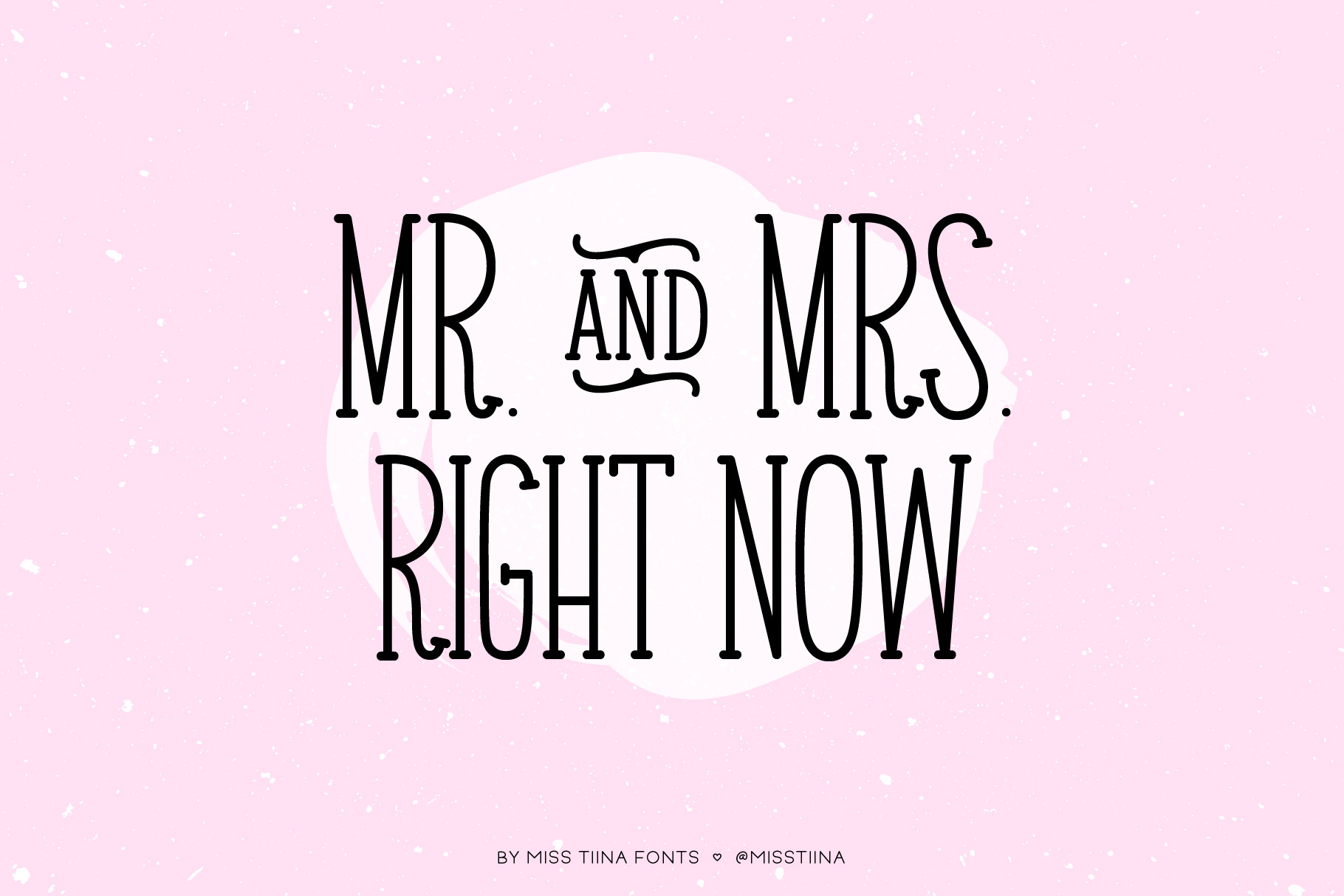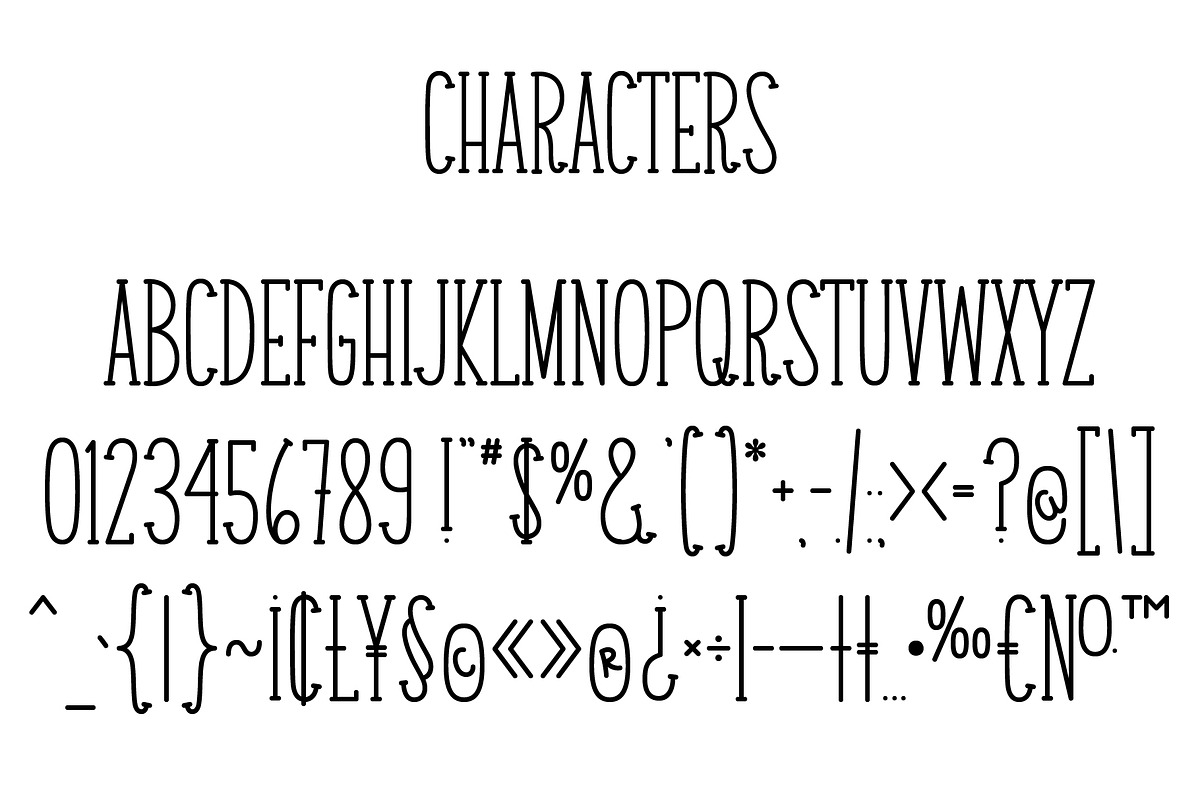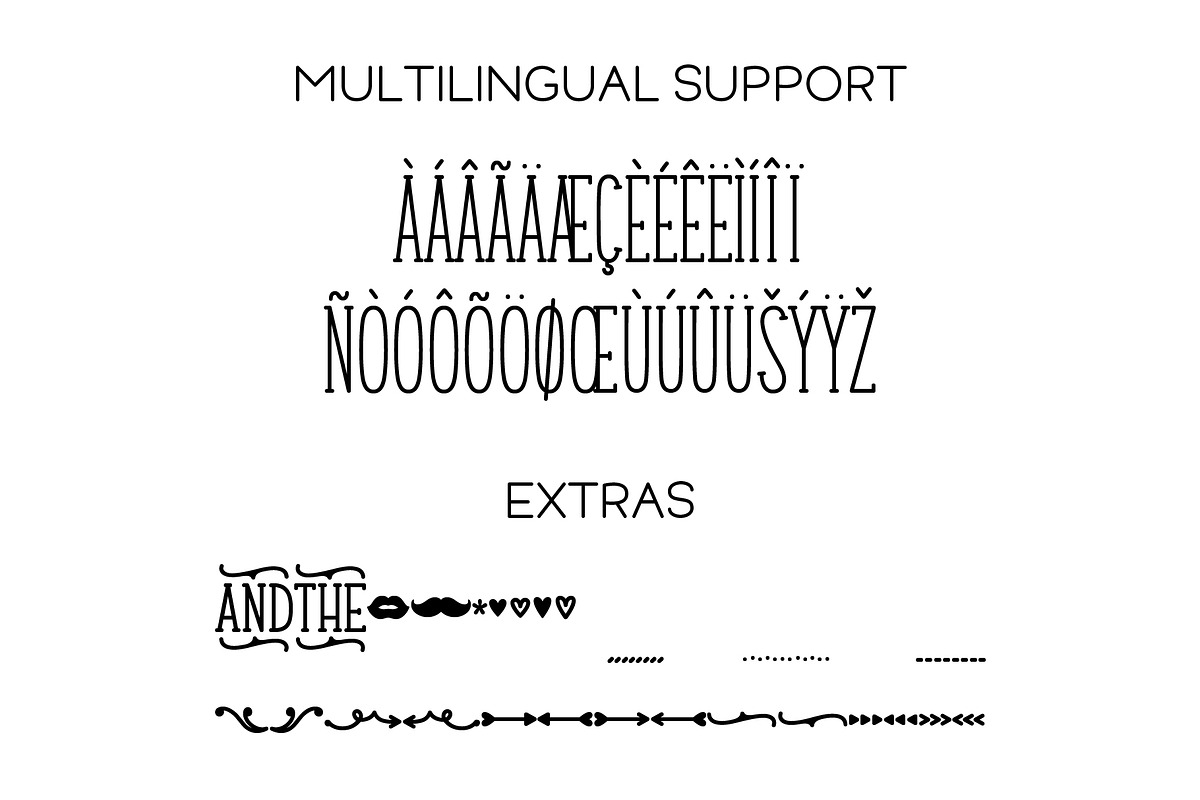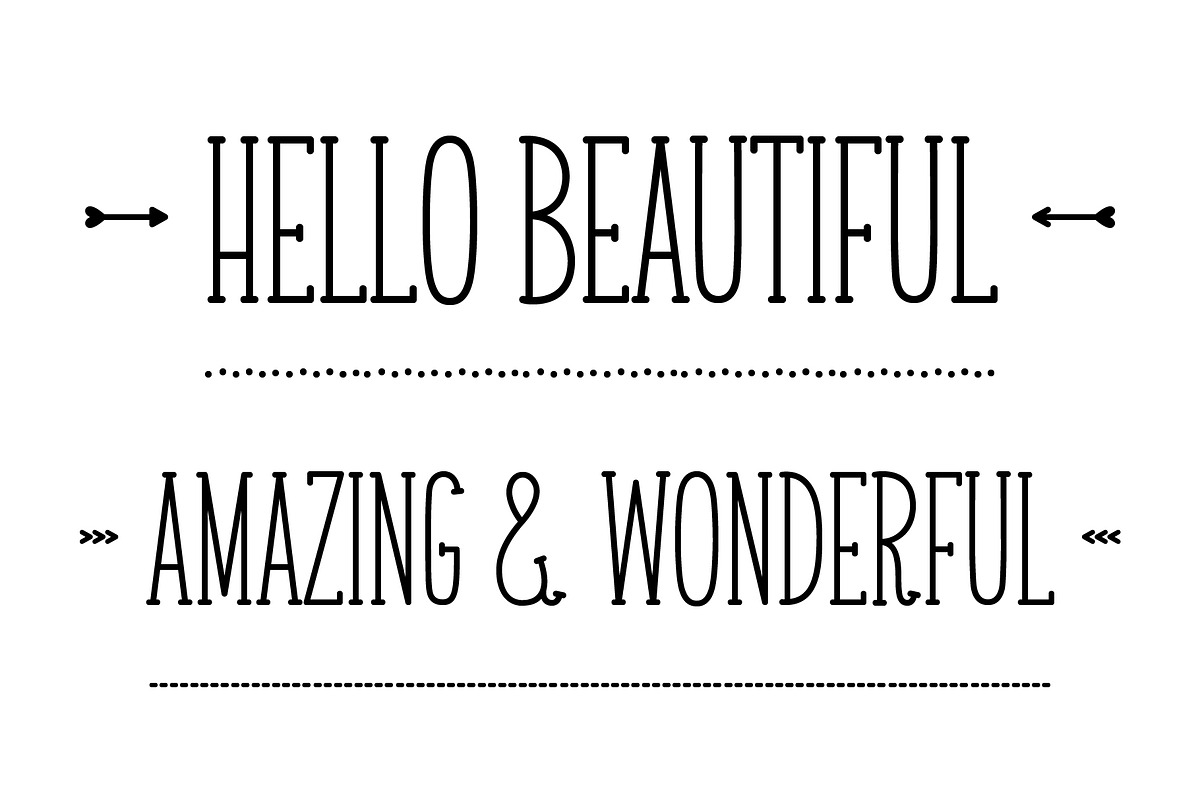
Mr. & Mrs. Right Now Font
Mr. & Mrs. Right Now is a stylish, yet fun handwritten serif font. Its unique charm and unusual coziness make it the right (!) choice for any design project you are working on. Plus, the lowercase characters contain some lovely decorative dingbats!
UPDATED 4.5.23 - This font, originally from 2014 now has perfected lines, better kerning and multilingual characters!
- EXTRA SYMBOLS + + +